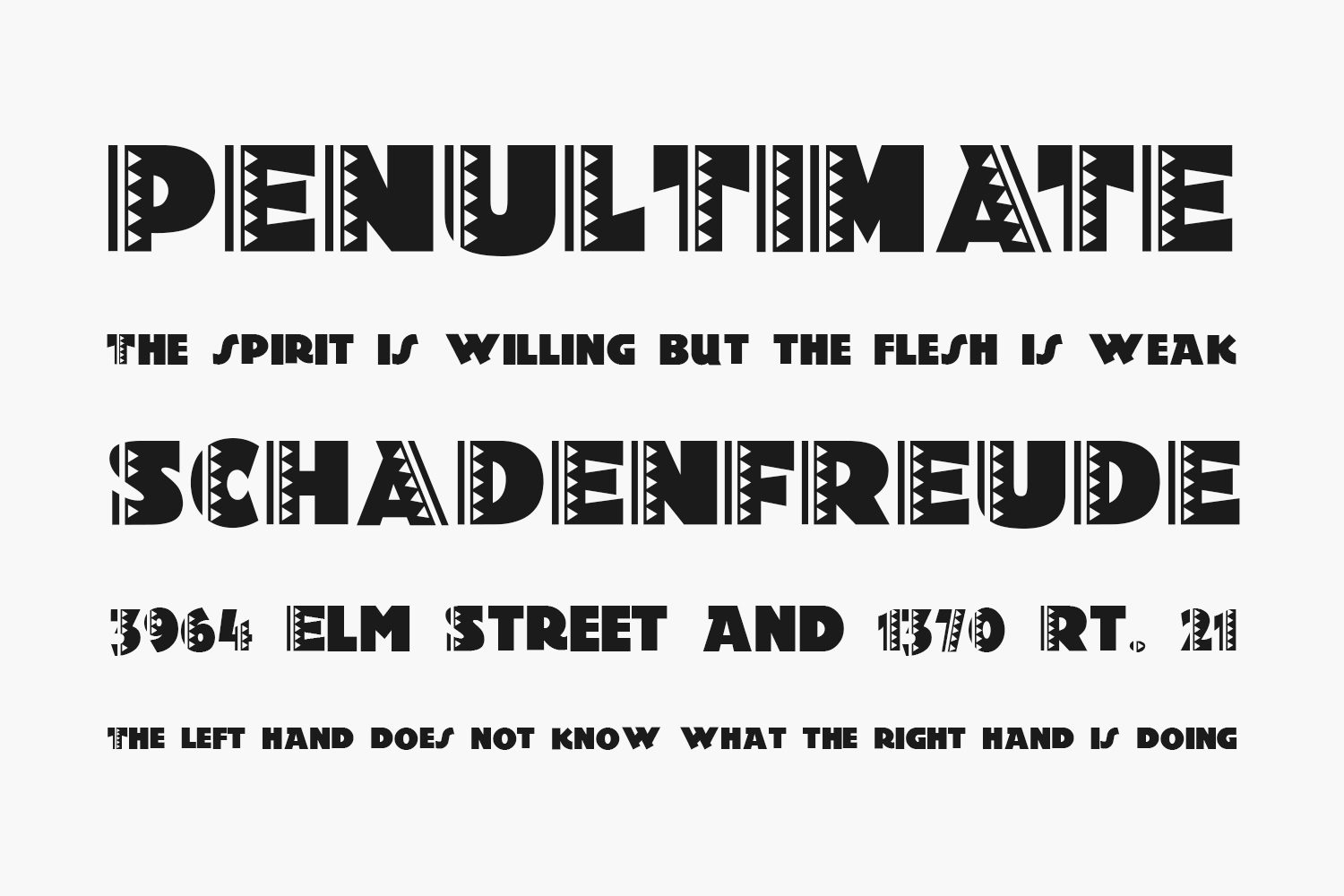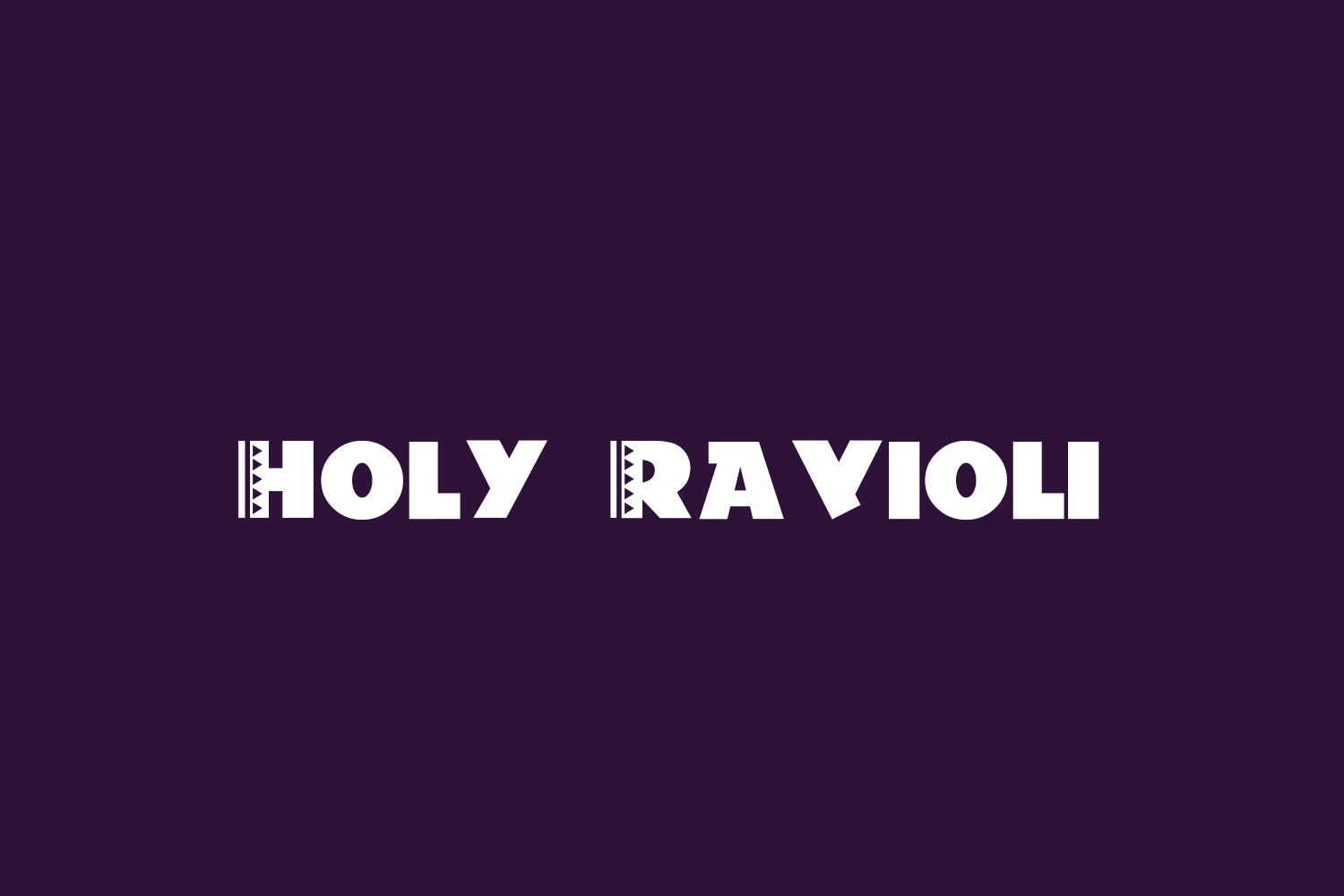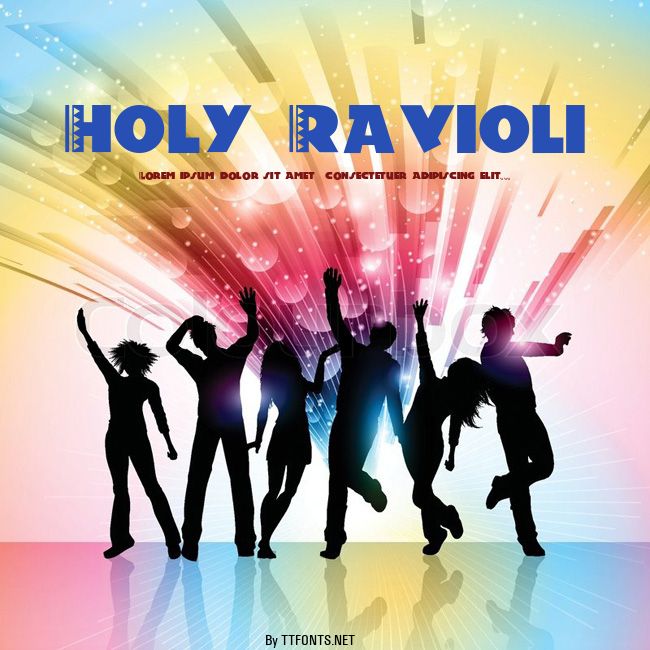
Holy Ravioli Font
Holy Ravioli Font - Web if you recognize the font from the samples posted here don't be shy and help a fellow designer. It’s suitable for various products such as invitations,. Web holy ravioli is a playful and clean display font created by nick curtis. It is decorative font and has 1 style.
It is decorative font and has 1 style. Web holy ravioli is a playful and clean display font created by nick curtis. It’s suitable for various products such as invitations,. Web if you recognize the font from the samples posted here don't be shy and help a fellow designer.
Web if you recognize the font from the samples posted here don't be shy and help a fellow designer. It’s suitable for various products such as invitations,. It is decorative font and has 1 style. Web holy ravioli is a playful and clean display font created by nick curtis.
Web holy ravioli is a playful and clean display font created by nick curtis. It is decorative font and has 1 style. Web if you recognize the font from the samples posted here don't be shy and help a fellow designer. It’s suitable for various products such as invitations,.
Web holy ravioli is a playful and clean display font created by nick curtis. Web if you recognize the font from the samples posted here don't be shy and help a fellow designer. It’s suitable for various products such as invitations,. It is decorative font and has 1 style.
It’s suitable for various products such as invitations,. Web holy ravioli is a playful and clean display font created by nick curtis. It is decorative font and has 1 style. Web if you recognize the font from the samples posted here don't be shy and help a fellow designer.
It’s suitable for various products such as invitations,. Web if you recognize the font from the samples posted here don't be shy and help a fellow designer. Web holy ravioli is a playful and clean display font created by nick curtis. It is decorative font and has 1 style.
It is decorative font and has 1 style. Web holy ravioli is a playful and clean display font created by nick curtis. Web if you recognize the font from the samples posted here don't be shy and help a fellow designer. It’s suitable for various products such as invitations,.
It is decorative font and has 1 style. Web if you recognize the font from the samples posted here don't be shy and help a fellow designer. Web holy ravioli is a playful and clean display font created by nick curtis. It’s suitable for various products such as invitations,.
It’s suitable for various products such as invitations,. It is decorative font and has 1 style. Web if you recognize the font from the samples posted here don't be shy and help a fellow designer. Web holy ravioli is a playful and clean display font created by nick curtis.
Web holy ravioli is a playful and clean display font created by nick curtis. It’s suitable for various products such as invitations,. It is decorative font and has 1 style. Web if you recognize the font from the samples posted here don't be shy and help a fellow designer.
Download free Holy Ravioli NF Regular font
Web if you recognize the font from the samples posted here don't be shy and help a fellow designer. It is decorative font and has 1 style. It’s suitable for various products such as invitations,. Web holy ravioli is a playful and clean display font created by nick curtis.
It Is Decorative Font And Has 1 Style.
Web if you recognize the font from the samples posted here don't be shy and help a fellow designer. Web holy ravioli is a playful and clean display font created by nick curtis. It’s suitable for various products such as invitations,.